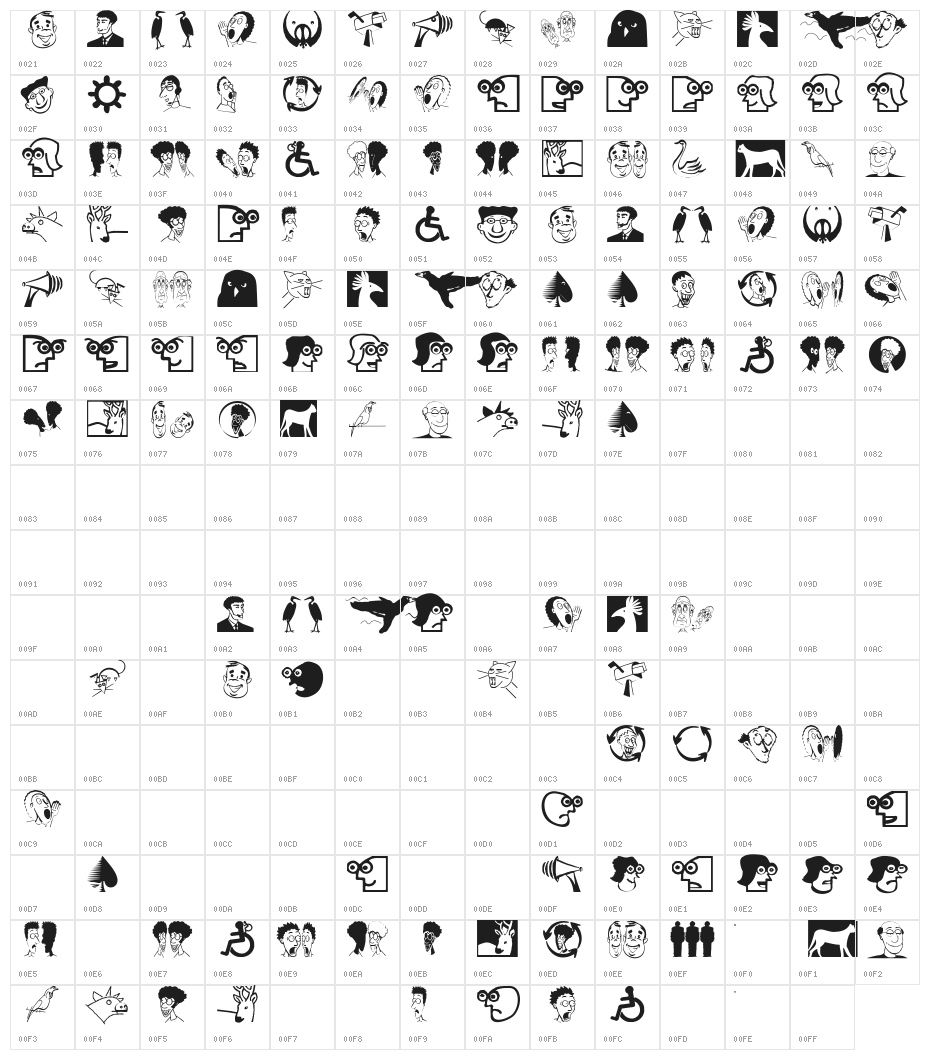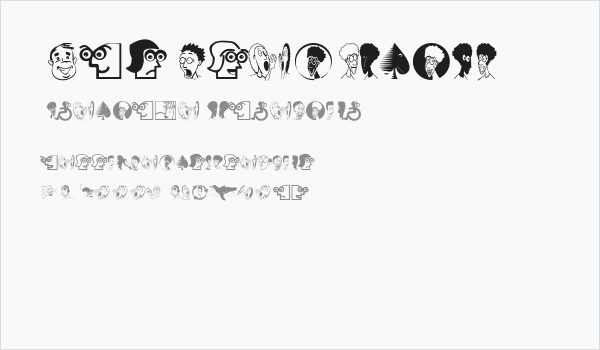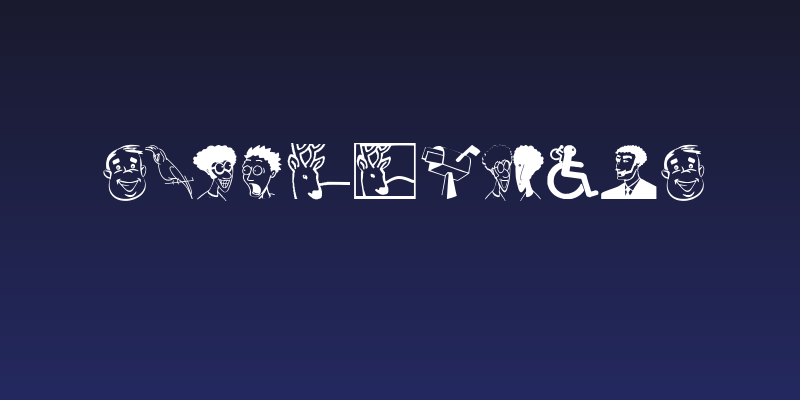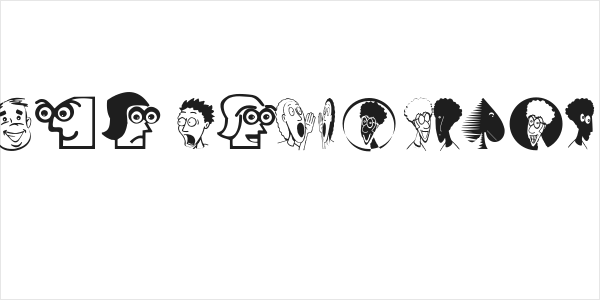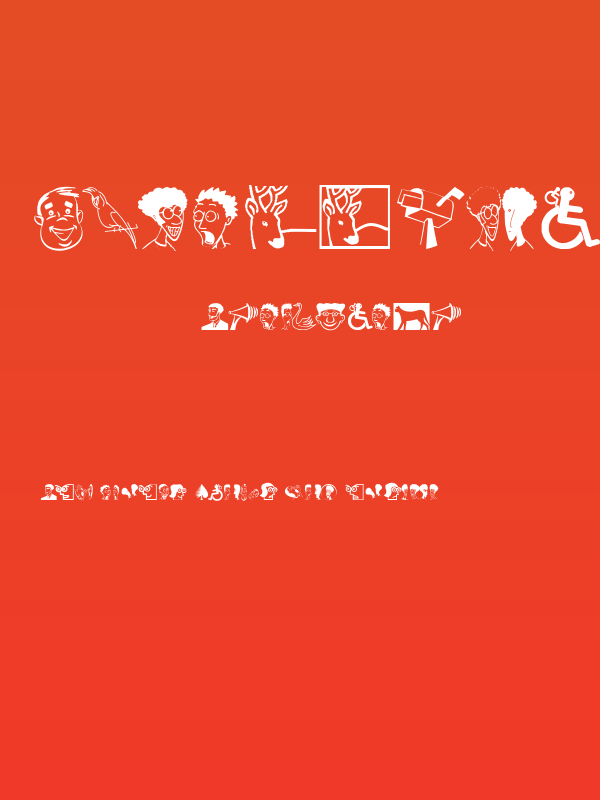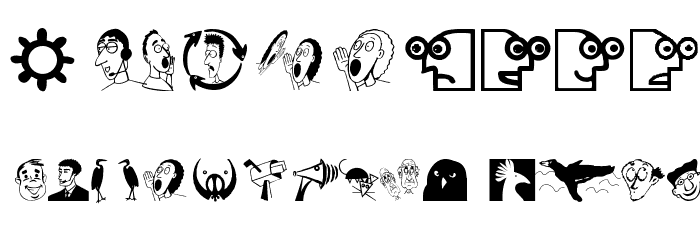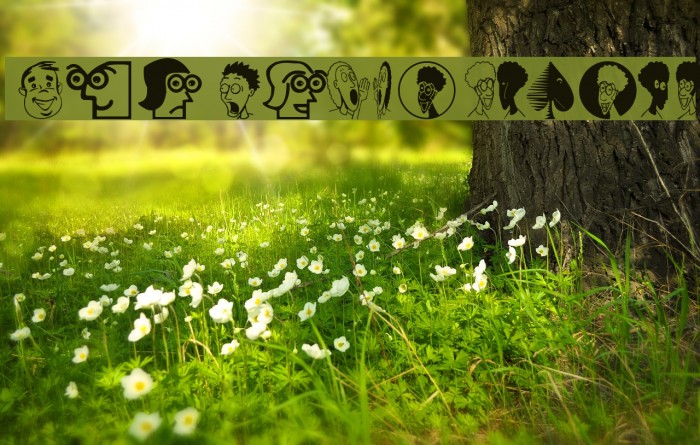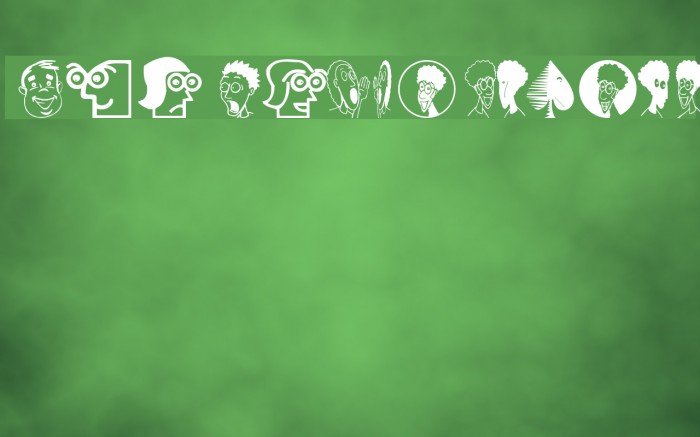
SimPlexBats Font
SimPlexBats Description
This is a decorative and playful dingbat font featuring a variety of whimsical and humorous illustrations. The characters include a mix of human faces, animals, and abstract designs, each with a unique and quirky style. The illustrations are bold and cartoonish, making them ideal for adding a fun and creative touch to projects. The font does not follow traditional alphabetical or numerical patterns, instead offering a collection of images that can be used as standalone graphics or in combination to create unique designs.